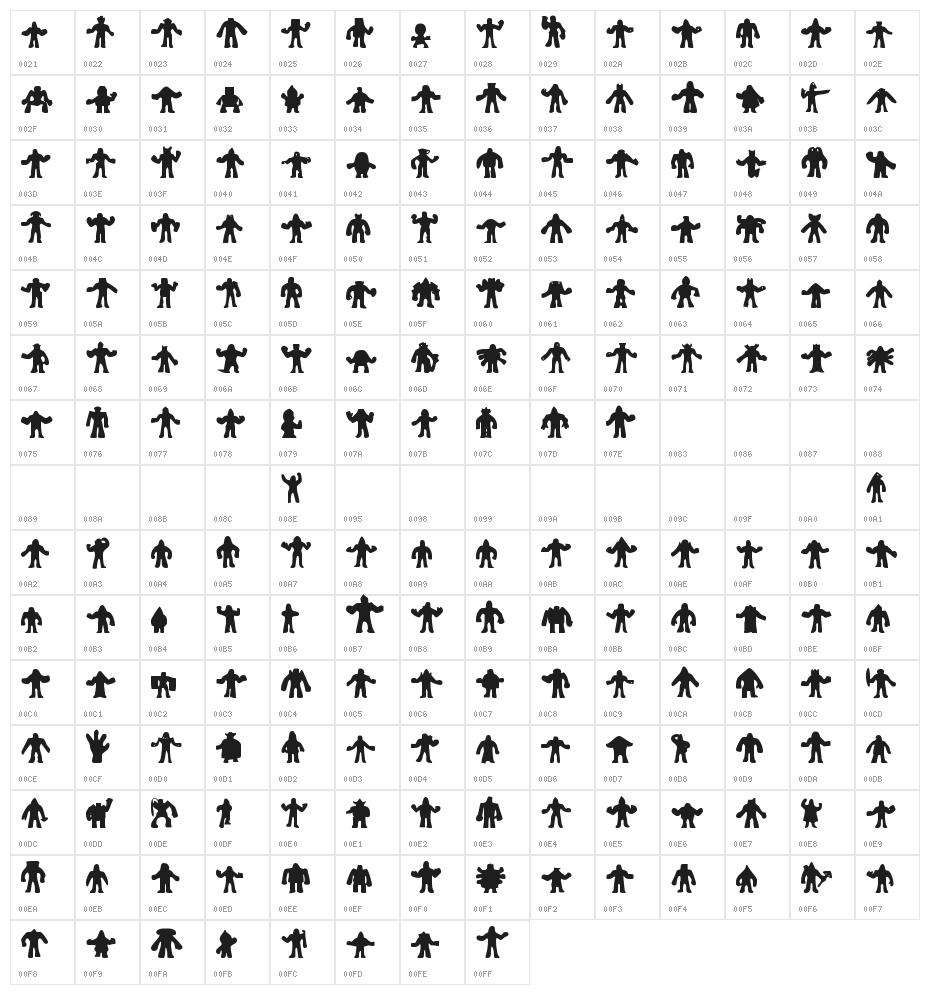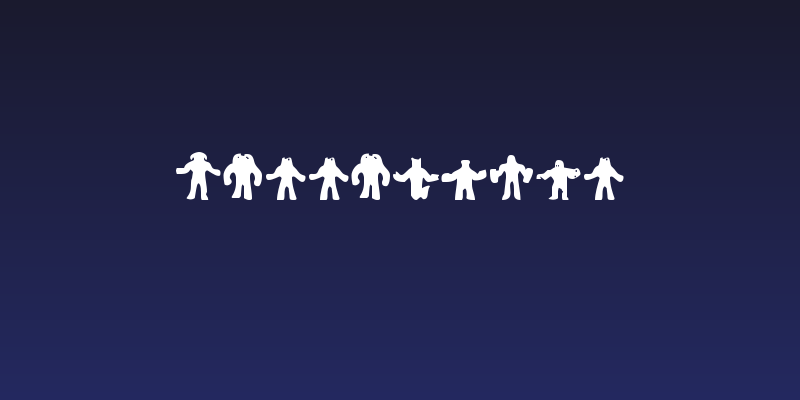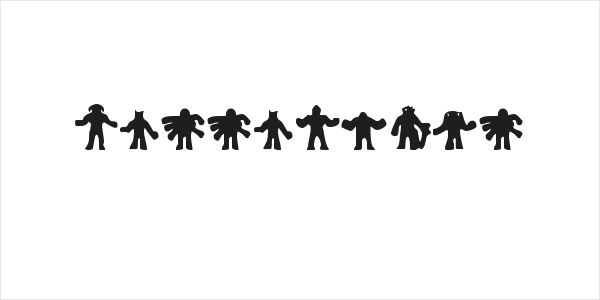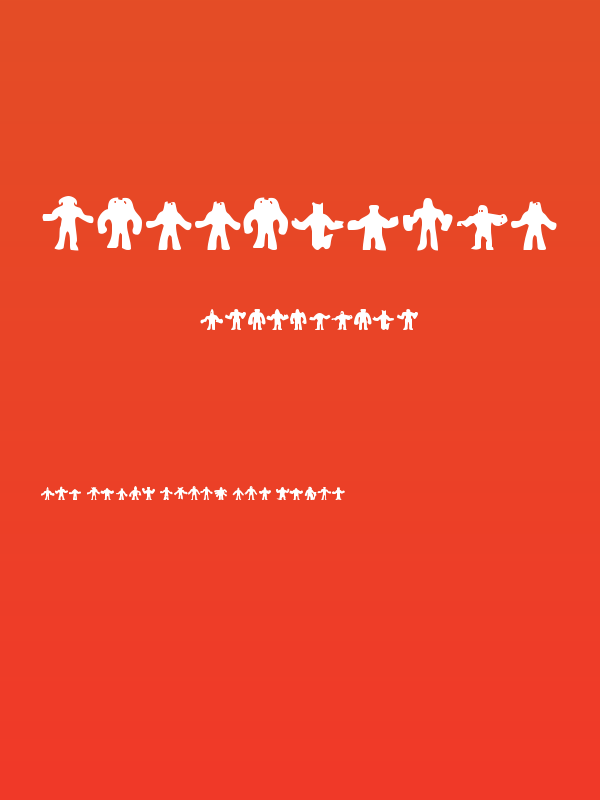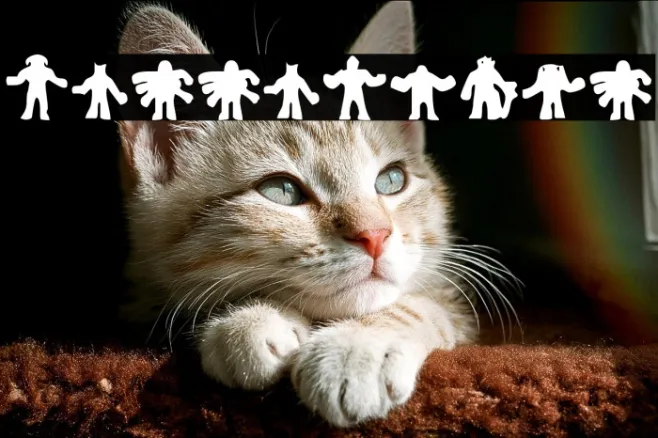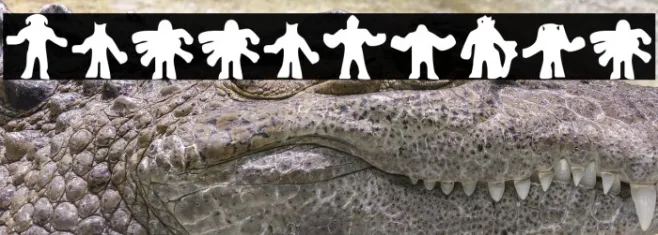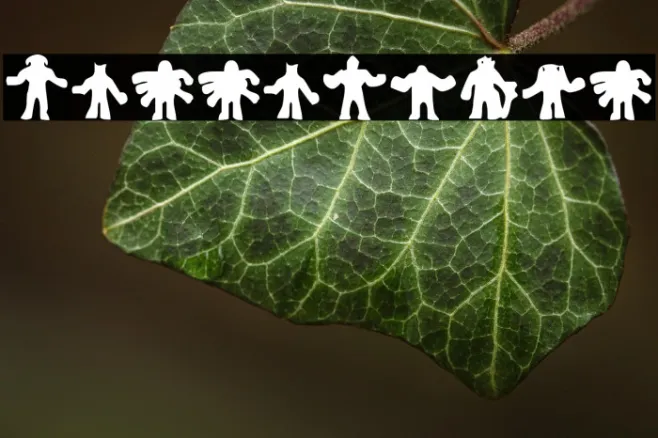
Kinnihuman Font
Kinnihuman Description
A playful, highly decorative font where each character is represented by a unique humanoid silhouette, creating a whimsical and imaginative appearance. The glyphs are bold, solid, and uniform in fill, with each letter and symbol taking on a distinct character-like form.
| Overall Style | Whimsical, Playful, Decorative |
| Use Case | Logos, Headlines, Posters, Children’s materials |
| Proposed Projects | Children’s books, posters, creative branding, party invitations, game titles, playful packaging. |